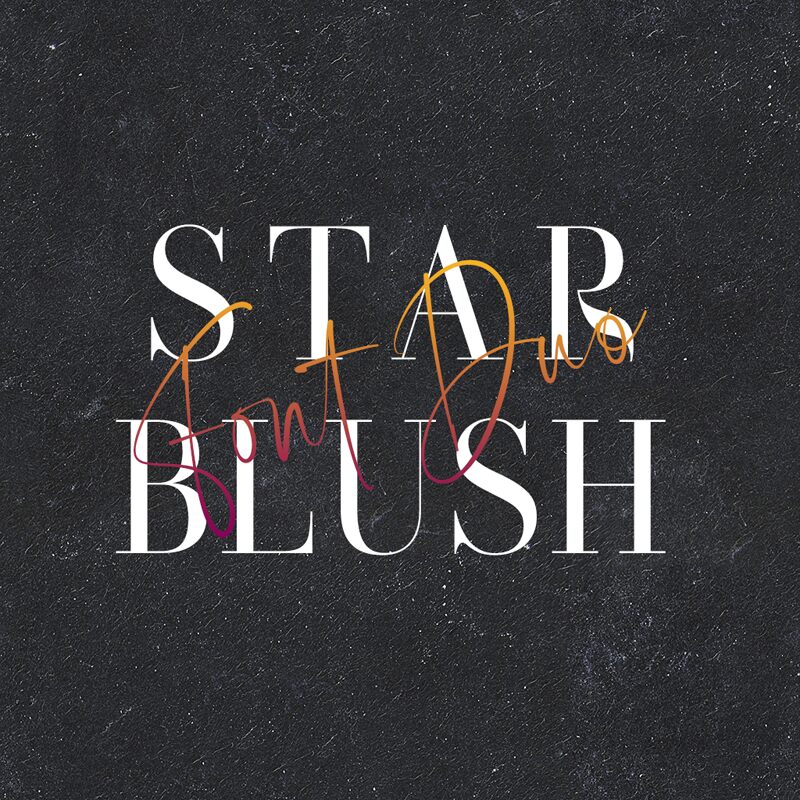
StarBlushScript Demo
Star Blush Script font by VampStudio is a free font as elegant and flowing as the handwriting you find in love letters and teenage diaries. Soft corners, smooth lines, and curvy edges create the unique design that this cursive typeface shares for personal and commercial projects. Star Blush Script carries a modern style that beautifully displays fonts with a delicate approach.
Lively yet sophisticated in every aspect, this script font adds both elegance and playfulness to your ads, book or movie titles, event invitations, welcoming signs, magazines covers, brands logotypes…